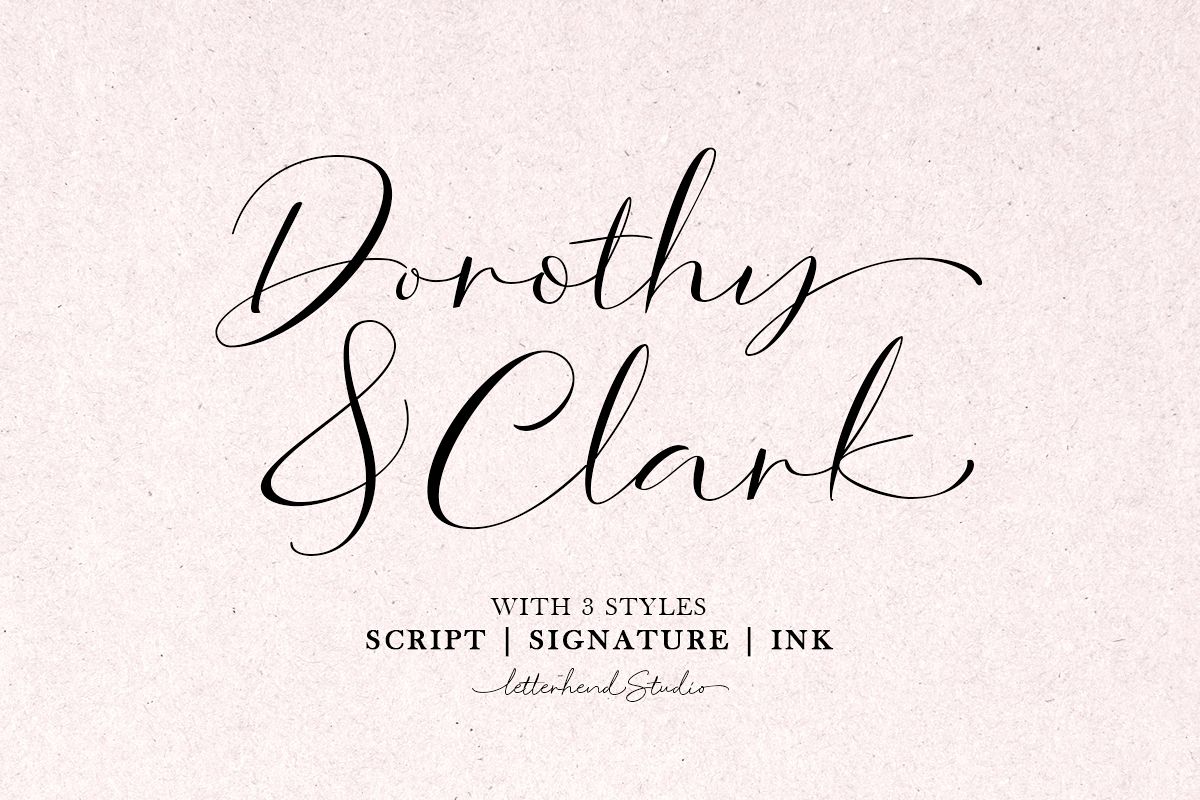
Dorothy Clark Script
Dorothy Clark Signature
Dorothy Clark Script
Dorothy Clark Ink
Introducing, Dorothy Clark Script. A stylish script comes with 3 styles, regular script, signature script and ink script. This typeface has unique opentype feature as you can see the explanation at 2nd preview image. This font perfectly made to be applied especially in logo, and the other various formal forms such as invitations, labels, logos, magazines, books, greeting / wedding cards, packaging, fashion, make up, stationery, novels, labels or any type of advertising purpose.Features :
• uppercase & lowercase
• numbers and punctuation
• multilingual
• ligatures
• alternates
• swashes
• contextual alternate